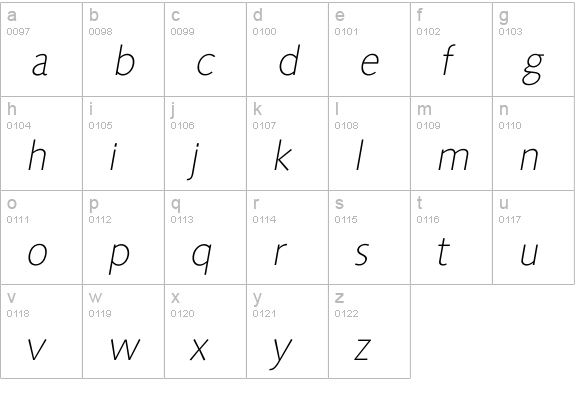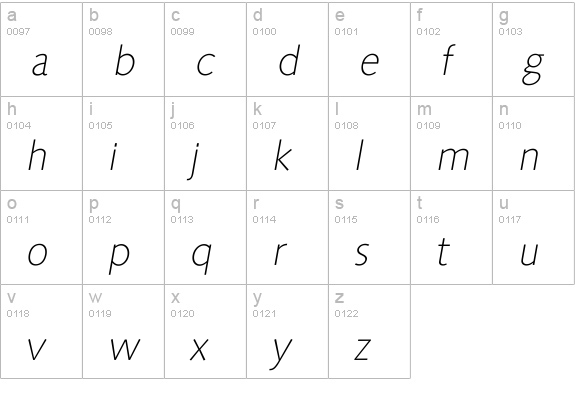
Introducing Isaxony Xlight - a versatile and elegant font that effortlessly combines sophistication with a touch of modernity. This captivating typeface is perfect for adding a stylish and refined feel to any design project, whether it's a logo, website, or print material. Isaxony Xlight boasts a delicate and graceful design, with slender letterforms that exude an air of grace and poise. Its clean lines and gentle curves create a sense of harmony and balance, making it a visually pleasing choice for both headings and body text. One of the most exciting aspects of Isaxony Xlight is that it is free to download at FontsMarket.com. This means that you can easily access this stunning font without any cost, making it an ideal choice for designers, entrepreneurs, and creatives on a budget. Whether you're seeking a font to elevate your branding, enhance your website's typography, or add a touch of elegance to your print materials, Isaxony Xlight is a font that will not disappoint. Its versatility and timeless appeal make it a must-have in your font collection. With Isaxony Xlight, your designs will effortlessly stand out from the crowd, making a lasting impression on your audience. So why wait? Download this stunning font today from FontsMarket.com and unleash your creativity with ease. Embrace the beauty and freedom of Isaxony Xlight, and watch your designs come to life.